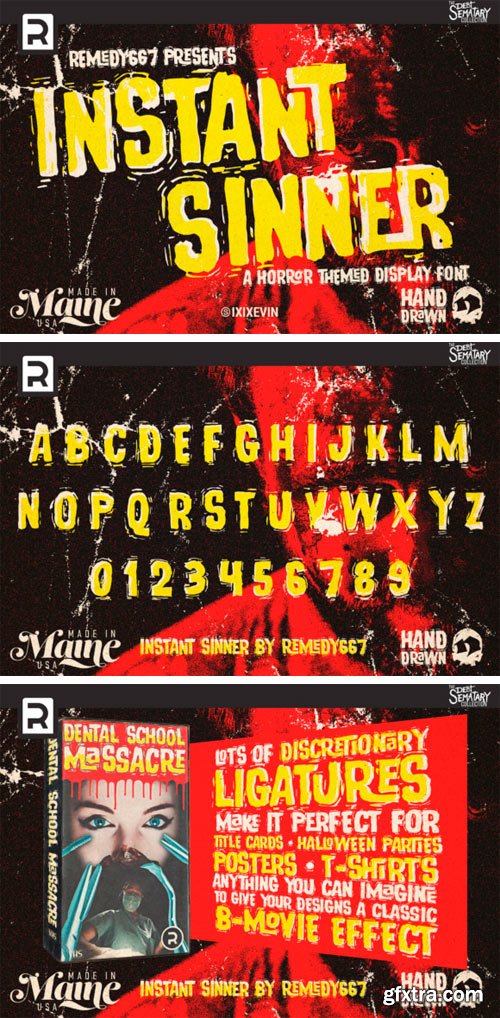
即时罪人字体
Instant Sinner Font
The Instant Sinner is a handmade terror font. It was inspired by vintage sci-fi and horror propaganda. It’s loaded with discretionary ligatures and alternates characters. Throw down some scratch, and see if your next project is an Instant Sinner.